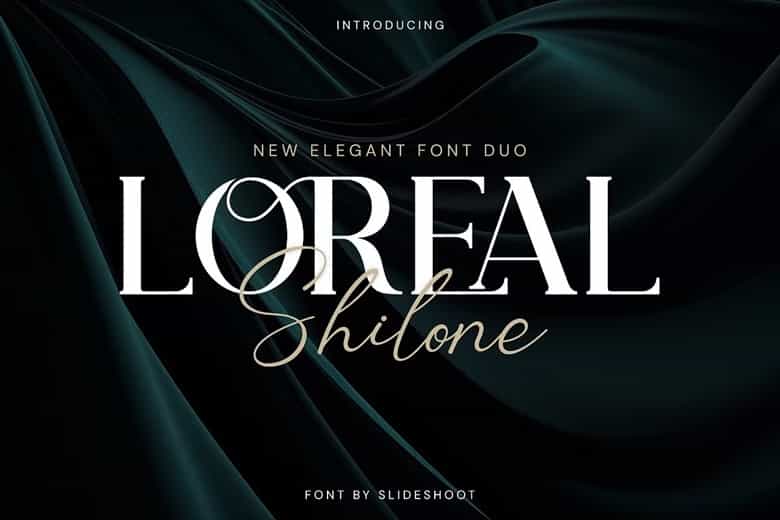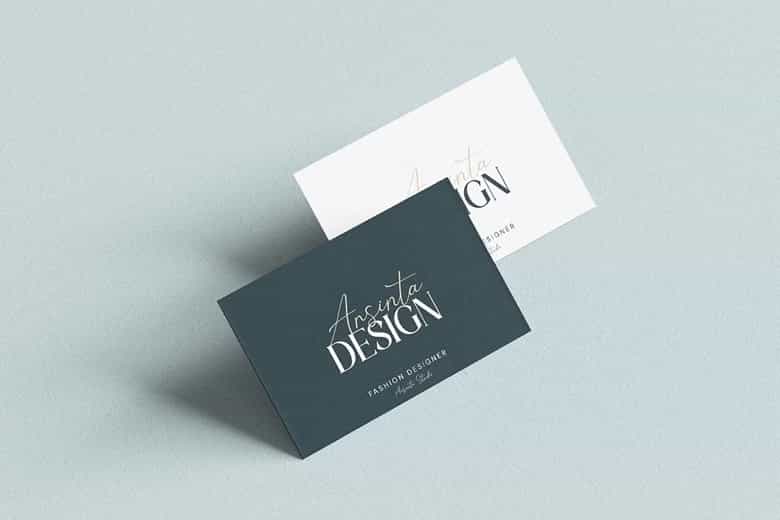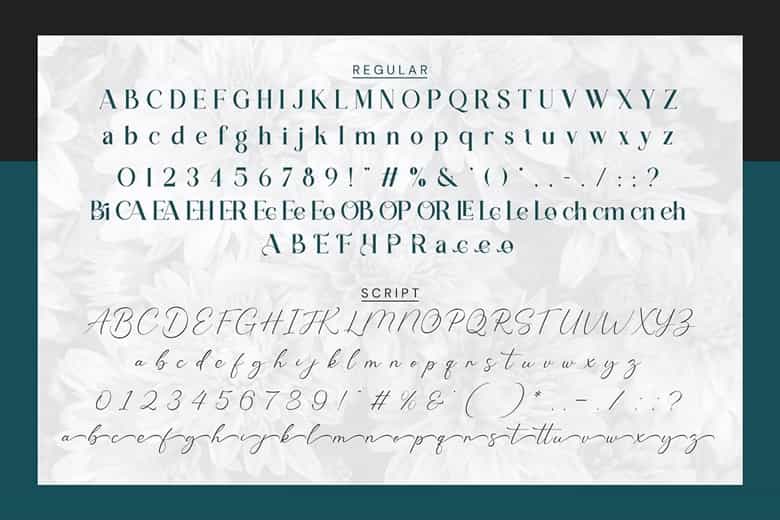
Discover Loreal Shilone Font, part of the Serif collection—a versatile and unique font perfect for adding a personal touch to your projects. Download it for free and enjoy crafting designs with style, from invitations to social media posts. This font is available exclusively for personal use, giving you the freedom to create without limits. Unlock your creativity with Loreal Shilone Font today!
Loreal Shilone is a new elegant typeface duo with modern serif and script that complement each other beautifully in design. It works for a range of uses including titles and logos and product designs.